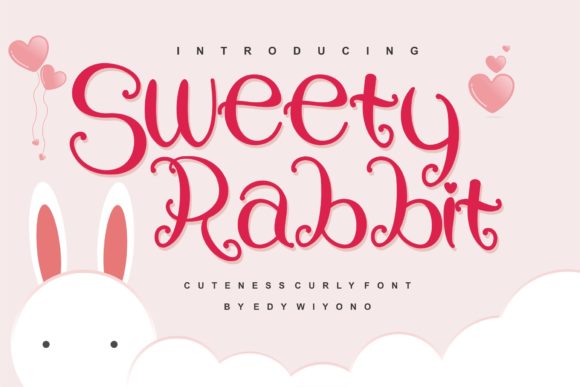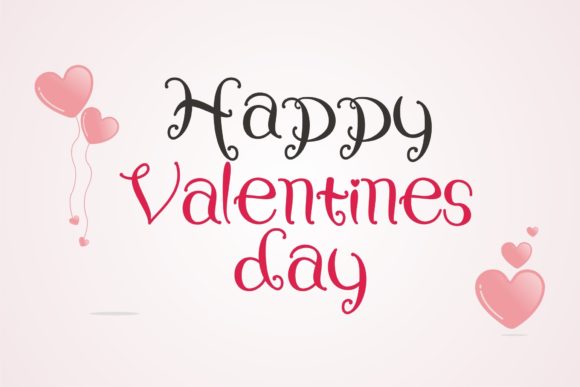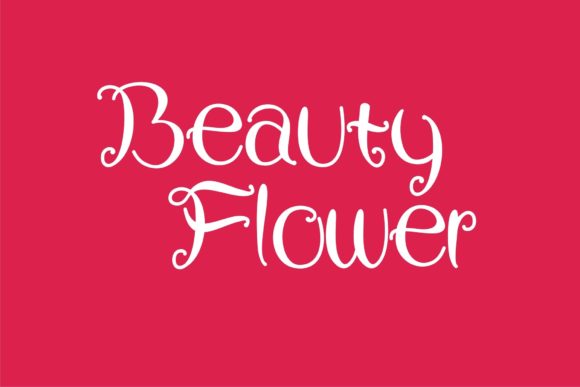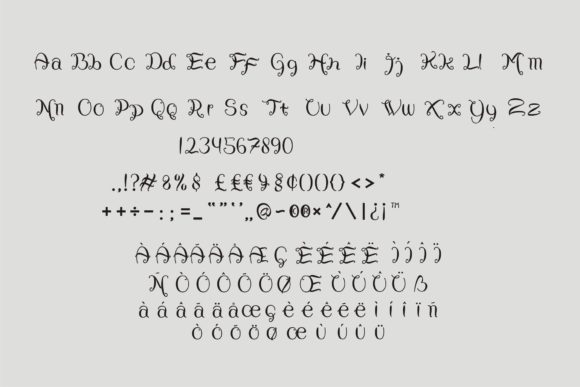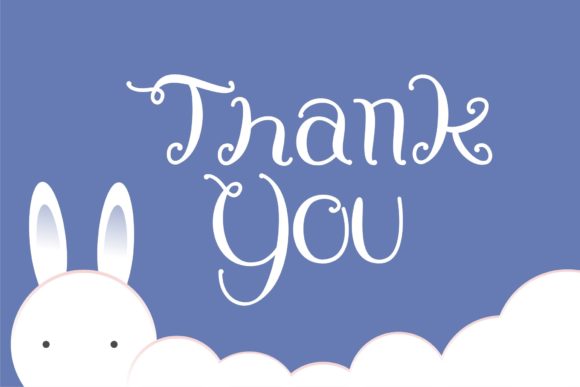
Sweety Rabbit Font
About Sweety Rabbit Font
Sweety Rabbit is an incredibly cute and whimsical handwritten font. Chic and jolly, this font will brighten up each of your designs. Add it confidently to your projects, and you will love the results.